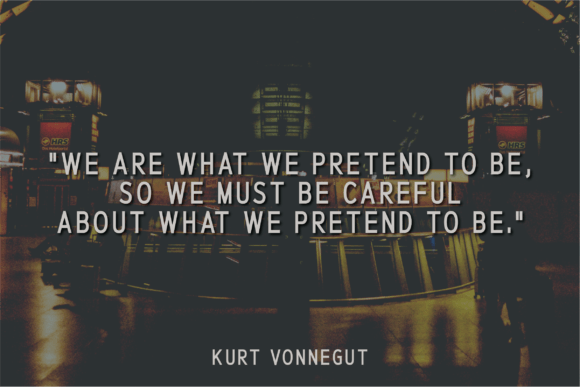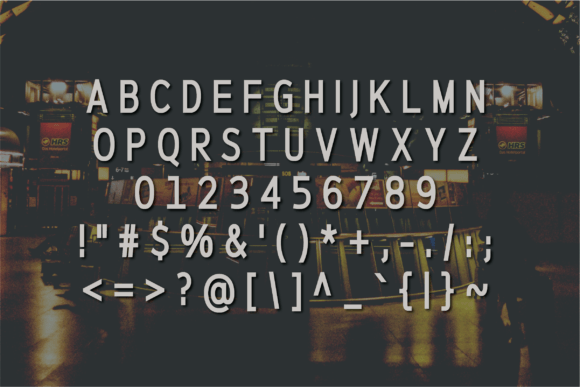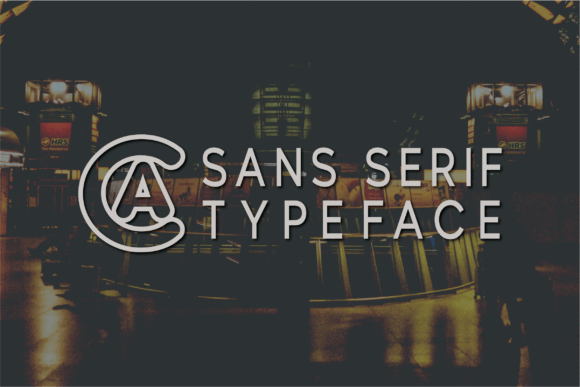
Introduction to Laxyeol Font
Have you ever stared at a blank page, waiting for inspiration to strike? That’s exactly where I was when I discovered the Laxyeol Font. Its sleek and modern design immediately caught my eye, and I knew I had to learn more about this versatile font.
As a designer, I’m always on the lookout for high-quality fonts that can elevate my creative projects. The Laxyeol Font is perfect for logos, weddings, invitations, quotes, and advertisements, making it a valuable addition to any design resource. Whether you’re working on a print project or designing for digital media, this font is sure to make your ideas come alive. Plus, its transparent background allows for seamless integration into your designs.
So, let’s dive into the world of the Laxyeol Font and explore what makes it a must-have for any designer looking for a free download that’s both stylish and professional.
Key Features of Laxyeol Font
- Features a unique, modern design with a transparent background, allowing for easy customization and layering.
- Designed to be highly legible and versatile, making it an excellent choice for a wide range of creative projects.
Honest Review: Laxyeol Font
As a designer, I’m always on the lookout for high-quality design resources to elevate my creative projects. The Laxyeol Font is one such find that I’m excited to share with you.
- ✨ Unique aesthetic: Laxyeol Font has a distinct, modern feel that’s perfect for contemporary designs.
- ✨ High quality: The font is crisp and clean, making it ideal for both digital and print projects.
- ⚠️ Limited character set: The Laxyeol Font only includes a basic set of characters, which may not be sufficient for complex projects.
- ⚠️ Not ideal for body text: While the font is great for headlines and titles, it may not be the best choice for large blocks of body text.
Overall, I’m impressed with the Laxyeol Font’s potential to elevate my designs. While it has some limitations, it’s a great addition to any designer’s toolkit, especially for free download. I’d definitely recommend it for creative projects that require a modern, high-quality font.
Getting the Most Out of Laxyeol Font
To get the most out of Laxyeol Font, use it in combination with other design elements to create visually appealing designs. Experiment with different font sizes, colors, and styles to achieve the desired look.
Laxyeol Font is commonly used in creative projects such as logo design, branding, and graphic design. It can also be used in presentations, documents, and social media graphics.